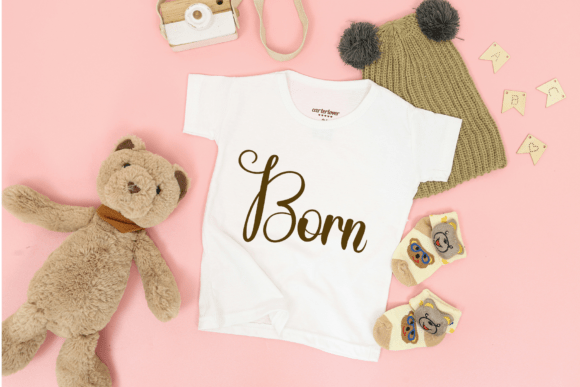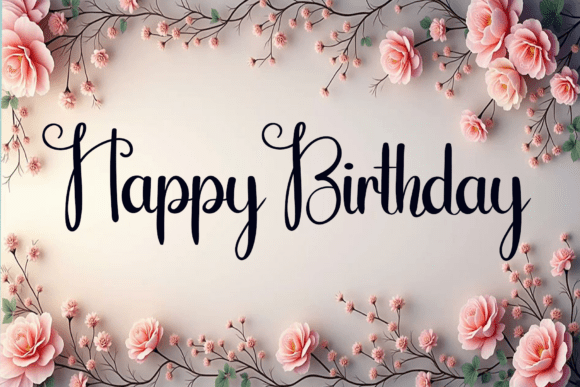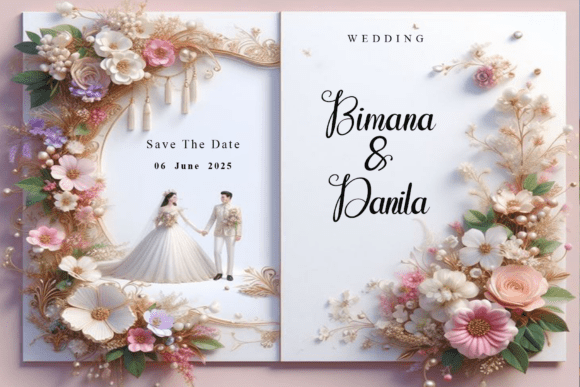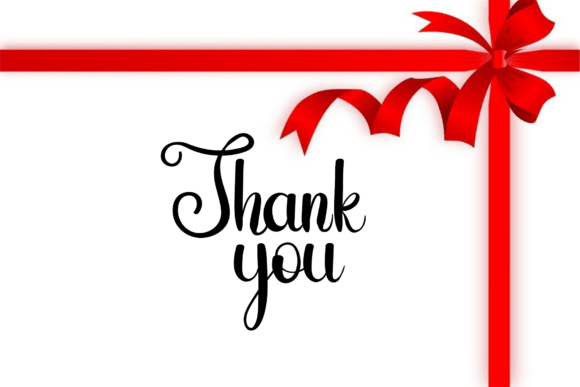
Introducing Anniversary Font: Elevate Your Designs with Elegant Handwritten Style
Are you looking for a font that adds a touch of elegance and sophistication to your designs? Look no further than Anniversary Font, a beautiful handwritten font with a natural, flowing style. This stunning font is perfect for crafters, designers, and anyone looking to add a personal and stylish touch to their invitations, logos, and social media posts.
What is Anniversary Font?
Anniversary Font is a carefully crafted handwritten font that mimics the look of elegant cursive writing. Its natural, flowing style gives it a unique and sophisticated feel, making it perfect for a wide range of design applications. Whether you’re creating wedding invitations, birthday cards, or social media graphics, Anniversary Font is sure to impress.
Key Features of Anniversary Font
- Natural, flowing style: Anniversary Font has a unique, handwritten feel that’s perfect for adding a personal touch to your designs.
- Elegant cursive writing: The font’s elegant cursive style makes it perfect for formal and informal designs alike.
- Highly versatile: Anniversary Font can be used for a wide range of design applications, from invitations and logos to social media posts and more.
- Easy to read: Despite its elegant style, Anniversary Font is highly legible, making it perfect for designs where clarity is key.
Anniversary Font is a dream come true for designers and crafters who want to add a touch of elegance and sophistication to their work. Whether you’re creating custom wedding invitations, designing logos for clients, or crafting social media graphics, this font is sure to impress. Its unique, handwritten style gives designs a personal and stylish touch that’s sure to stand out.
Use Cases for Anniversary Font
So, what can you use Anniversary Font for? The possibilities are endless! Here are a few ideas to get you started:
- Wedding invitations: Add a touch of elegance and sophistication to your wedding invitations with Anniversary Font.
- Logos and branding: Use Anniversary Font to create unique and stylish logos for your clients or business.
- Social media graphics: Add a personal and stylish touch to your social media graphics with Anniversary Font.
- Birthday cards and invitations: Create custom birthday cards and invitations with a touch of elegance and sophistication.
- Stationery and paper goods: Use Anniversary Font to create stylish stationery, paper goods, and other craft projects.
Tips for Using Anniversary Font
Here are a few tips for getting the most out of Anniversary Font:
- Experiment with font sizes: Anniversary Font looks great in a variety of font sizes, so don’t be afraid to experiment to find the perfect size for your design.
- Pair with complementary fonts: Pair Anniversary Font with complementary fonts to create a unique and stylish look.
- Use for headlines and body text: Anniversary Font is highly legible, making it perfect for both headlines and body text.
Anniversary Font is a beautiful handwritten font with a natural, flowing style that’s perfect for adding a personal and stylish touch to your designs. Its elegant cursive writing style, highly versatile, and easy to read, making it perfect for a wide range of design applications. Whether you’re a designer, crafter, or simply looking for a stylish font for your next project, Anniversary Font is sure to impress.